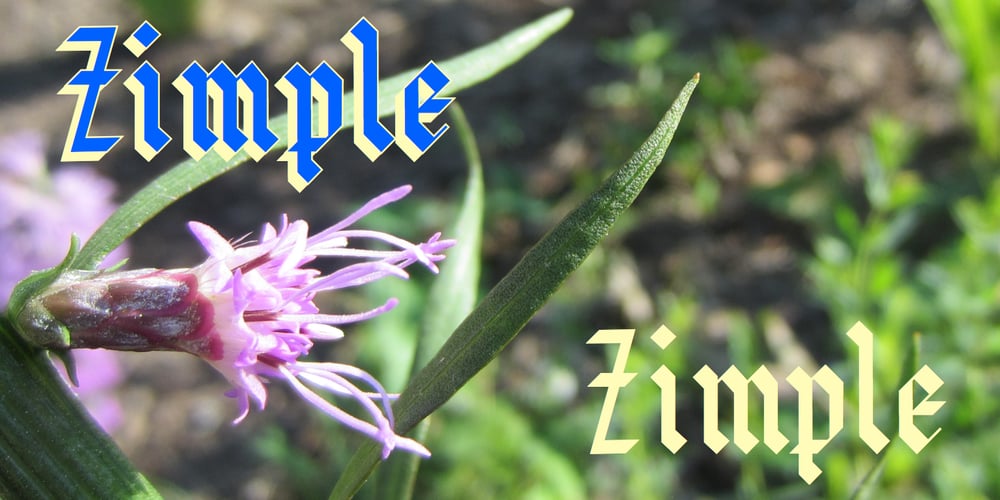
Zimple Font Family was designed by Robert Schenk and published by Ingrimayne Type. Zimple contains 3 styles and family package options. Zimple is a very simple blackletter face with few if any curves. The Zimple Extrude Overlay font is spaced so that it can be layered with Zimple Shadow to produce bicolored lettering.